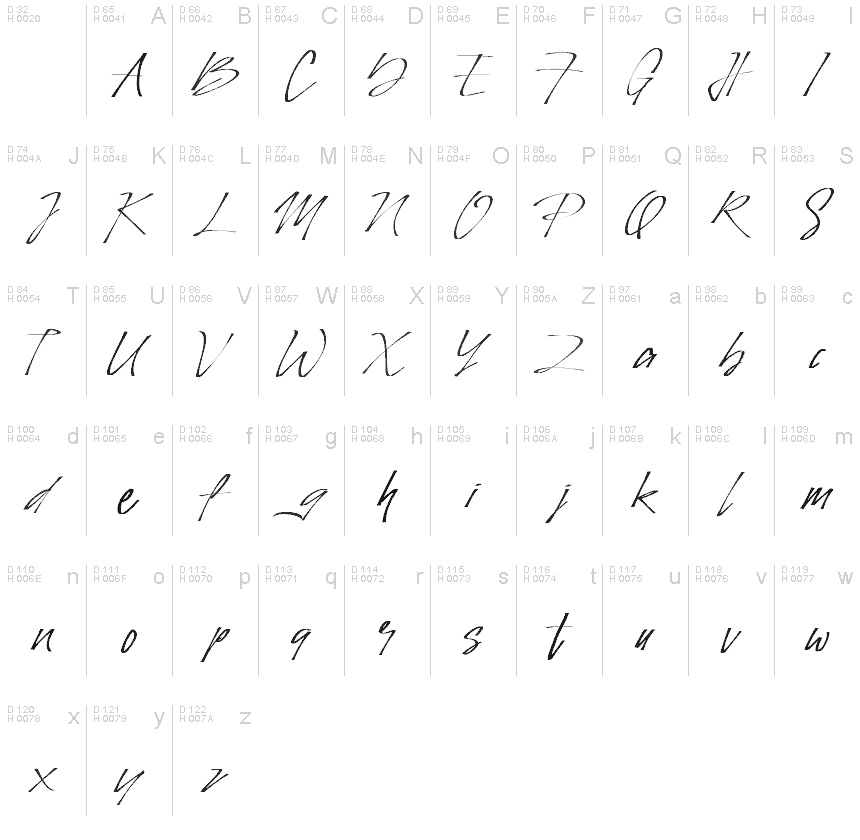
PinSign
PinSign, crafted by the creative minds at Selawetype, encapsulates the essence of personal touch in its light handwritten style. Its semi-condensed width offers a unique blend of elegance and economy of space, making it an exquisite choice for designers aiming to convey intimacy without clutter. The fluidity of PinSign's characters suggests a sense of sophistication and flair, while maintaining readability—a testament to its designer's attention to detail.
The light weight of PinSign provides a delicate and subtle charm that can enhance the aesthetic appeal of wedding invitations, boutique branding, or any project that requires a hint of finesse. Its handwritten nature makes it inherently personable, ideal for conveying messages that require a human touch. Whether used in digital graphics or printed materials, PinSign stands out for its ability to marry casual elegance with functional design.